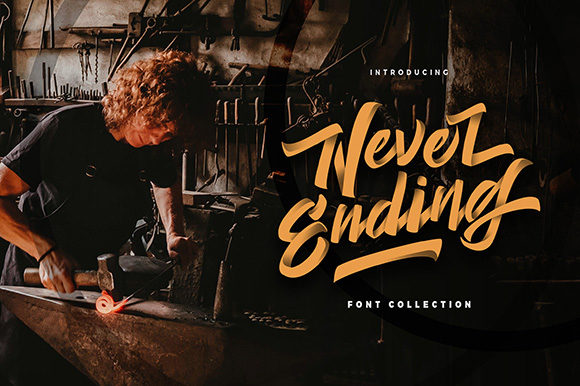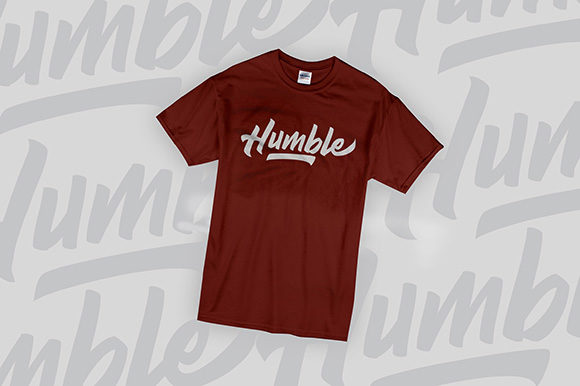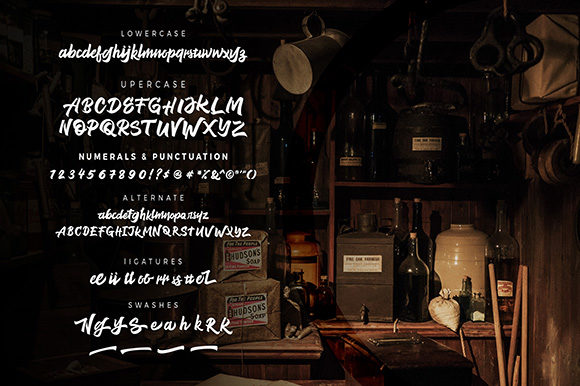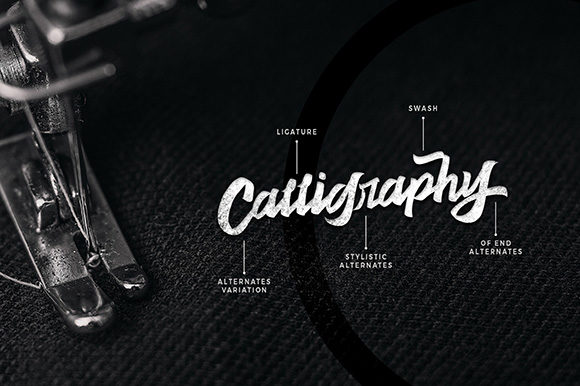
Never Ending Font
About Never Ending Font
The Never Ending is a cool script font. It has a vintage feel and an amazing handwritten, yet striking touch. It’s perfect for adding a natural feel to your branding materials, t-shirts, pints, business cards, logos, posters, and much more!